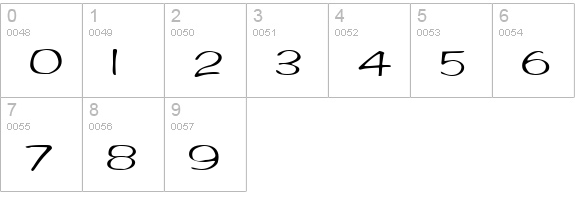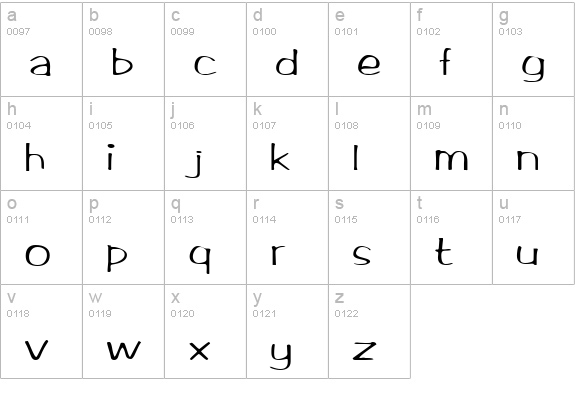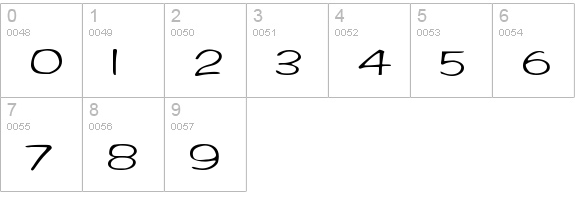
Marlo Normal is the standard, neutral variant in the Marlo typeface family \xE2\x80\x94 well suited to general body text, paragraphs, and standard typographic work.
Marlo Normal font is an exquisite typeface that exudes elegance and sophistication. Its sleek and modern design makes it perfect for a wide range of projects, from branding and advertising to web design and editorial work. With its clean lines and balanced letterforms, Marlo Normal font adds a touch of professionalism to any project. What sets Marlo Normal font apart is its versatility and readability. Whether used in large headlines or small body text, this font remains legible and easily readable. Its attention to detail and carefully crafted letterforms ensure a smooth reading experience for your audience. One of the best things about Marlo Normal font is that it is free. Yes, you read that right! This stunning font is freely available to download at FontsMarket.com. Now, you can enhance your designs without breaking the bank. Simply visit FontsMarket.com, locate Marlo Normal font, and start downloading it today. So, whether you're a professional designer or a hobbyist, Marlo Normal font is a must-have in your font collection. Its timeless appeal and free availability make it an excellent choice for all your design needs. Don't miss out on the opportunity to add this versatile and elegant font to your creative arsenal. Download Marlo Normal font today and elevate your designs to new heights.